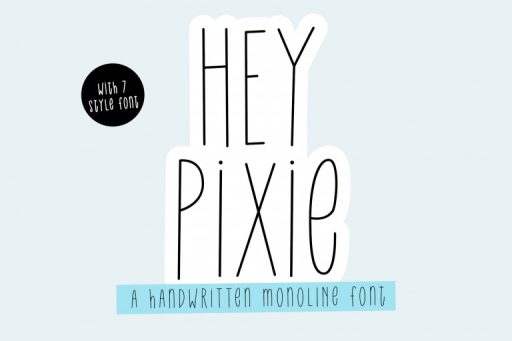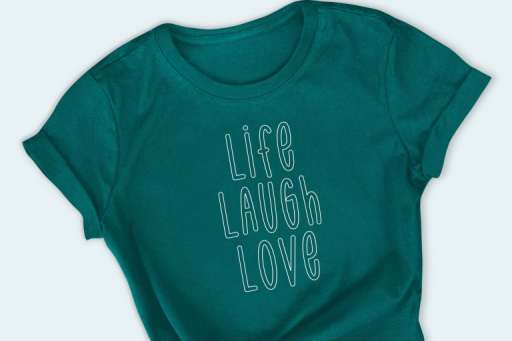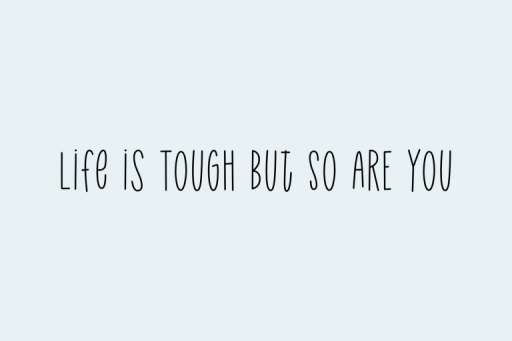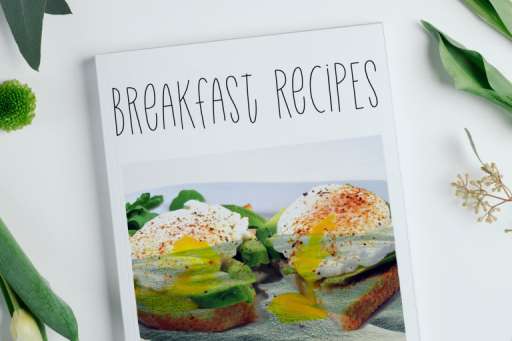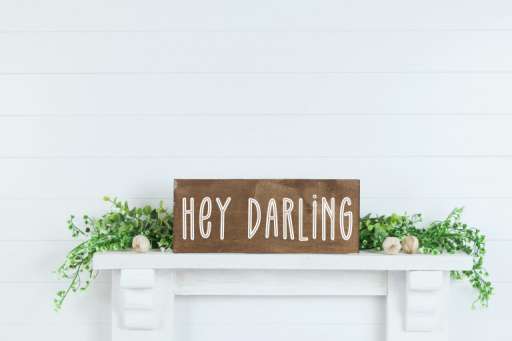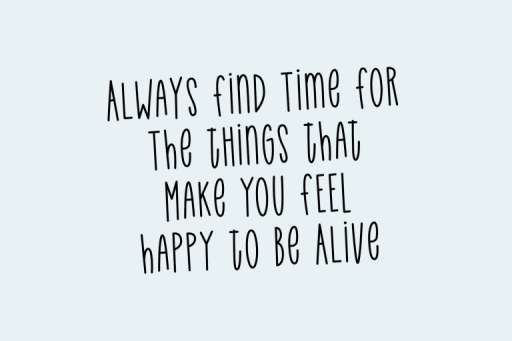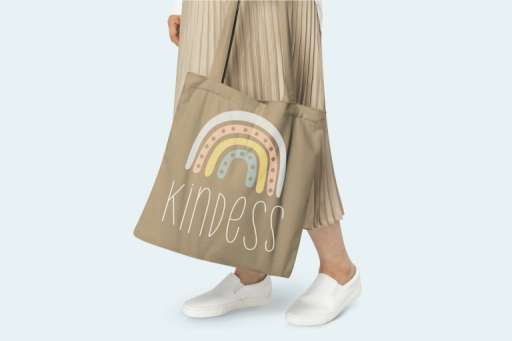
Hey Pixie – 7 Variations Font
Hey Pixie is handwritten monoline font comes with 7 variations. Hey Pixie Font is a great choice for your farmhouse designs, branding, logos, t-shirt design, svg designs, books, web, body text, quotes, social media, and more!